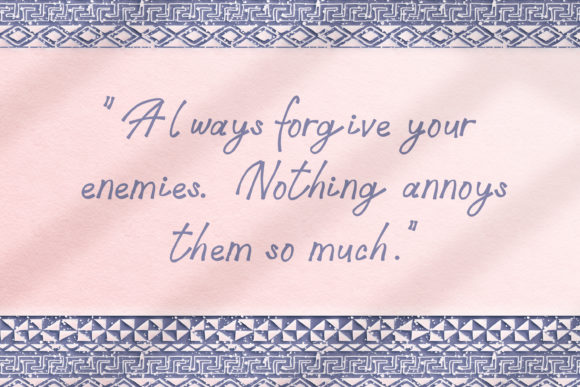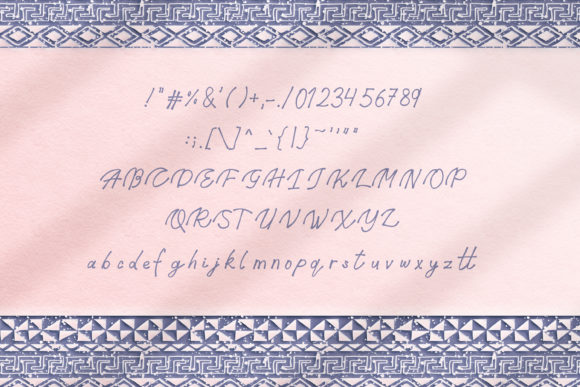
Charnushka Font
Charnushka is s simple and cute handwritten font. Its well balanced letters make this font fit for a wide variety of contexts. The only limit is your imagination!